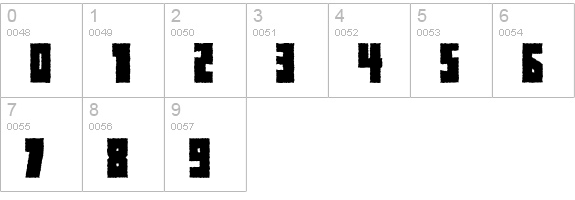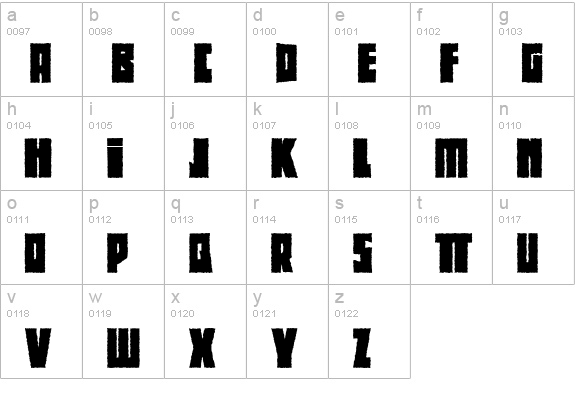
BeethovenRougher Font Details
BeethovenRougher font is a bold and dynamic typeface that exudes a sense of strength and creativity. Its rugged edges and rough texture give it a unique and distinctive look that is perfect for making a statement in your designs. This font is ideal for creating eye-catching headlines, posters, logos, and more. What makes BeethovenRougher font even more appealing is that it is available for free download at FontsMarket.com. That's right - you can get your hands on this striking font without having to spend a dime. Whether you're a designer looking to add some edge to your projects or simply someone who appreciates bold and impactful typography, BeethovenRougher font is a fantastic choice. Download it today and unleash the power of this one-of-a-kind typeface in your designs.